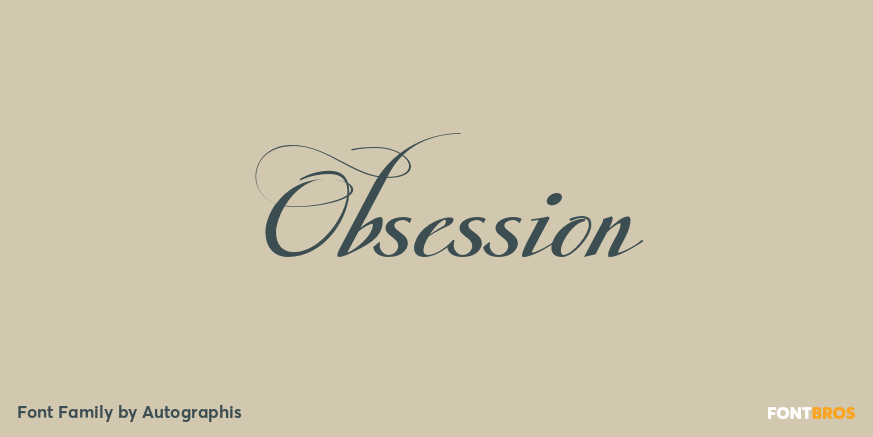
Obsession has taken me completely in its spell. I could go on forever creating new forms for this script. But I have other fonts to do, so this is as far as my obsession goes for the moment. There are six different cuts and all letters can be mixed.